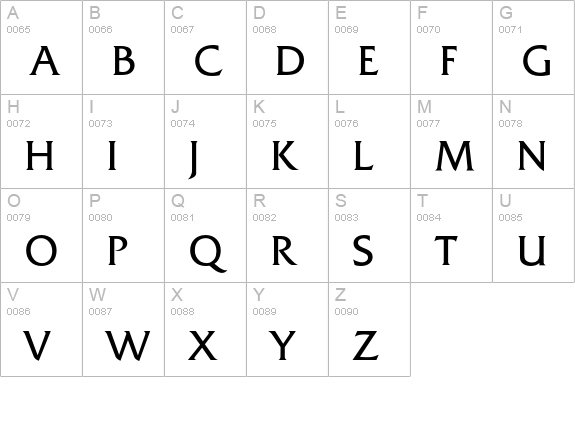
Quadrat-Light is a refined, elegant variant in the Quadrat typeface family \xE2\x80\x94 well suited to elegant body text, refined sub-headings, and luxury branding.
Quadrat-Light font is a visually stunning and elegant typeface that effortlessly combines modernity with a touch of timeless sophistication. With its clean lines and delicate curves, this font exudes a sense of refined simplicity that is perfect for a wide range of design projects. The Quadrat-Light font offers a unique blend of versatility and legibility, making it suitable for both display purposes and body text. Whether you're designing a logo, creating a website, or crafting a professional document, this font will elevate your work to new heights. One of the most remarkable features of Quadrat-Light font is its free availability. That's right, you can download this exceptional font at absolutely no cost from FontsMarket.com. This means that you can enjoy the benefits of this high-quality typeface without having to worry about any financial constraints. By downloading Quadrat-Light font, you gain access to a world of endless creative possibilities. Its gentle and minimalist approach will bring a sense of harmony to your designs, while its versatility will ensure that it fits seamlessly into any project. Whether you're aiming for a sleek and modern aesthetic or a classic and timeless look, Quadrat-Light font has got you covered. Don't miss out on the opportunity to enhance your design projects with the elegance and charm of Quadrat-Light font. Visit FontsMarket.com today and discover the beauty of this font, available to you for free.